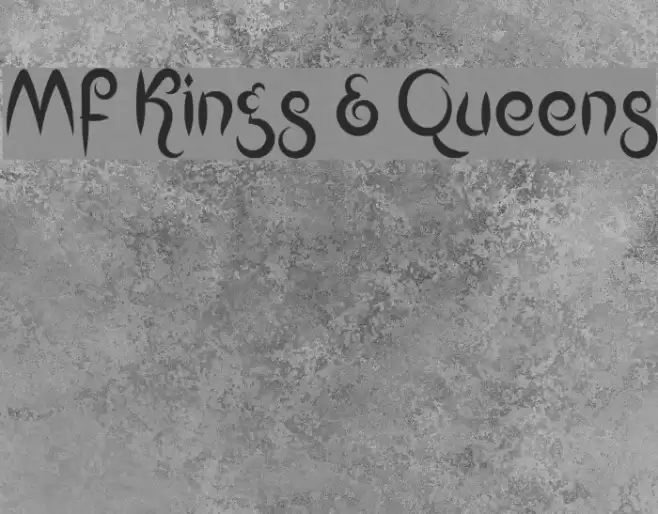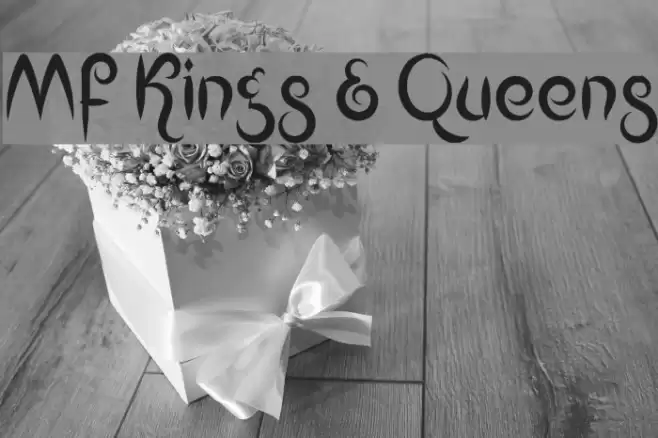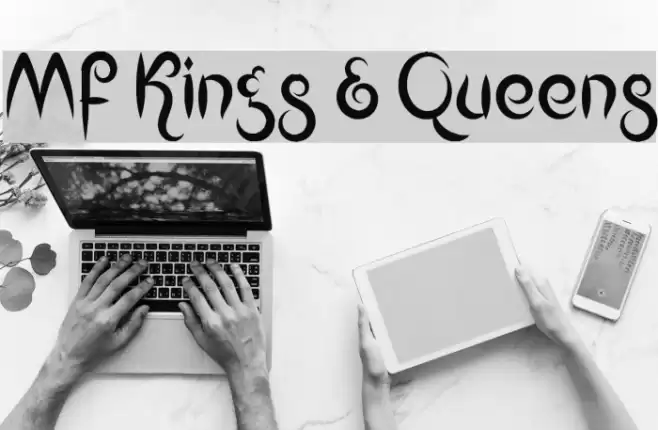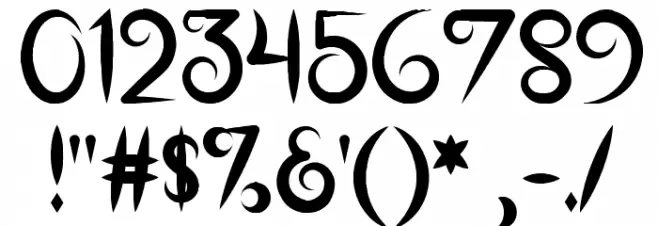
Mf Kings & Queens Font
Mf Kings & Queens Description
This font features a unique and artistic style with a blend of sharp and flowing elements. The uppercase letters are characterized by bold, sweeping strokes and intricate details, giving them a dramatic and eye-catching appearance. The lowercase letters maintain a similar aesthetic, with a slightly more fluid and whimsical design. The numbers and special characters are crafted with the same attention to detail, ensuring consistency across the entire character set. This font's distinct style makes it suitable for creative and decorative applications, where a touch of elegance and flair is desired.
A bold, artistic font with dramatic strokes and intricate details from Uncategorized fonts.